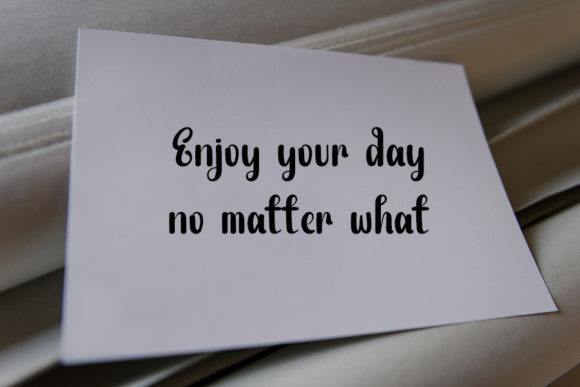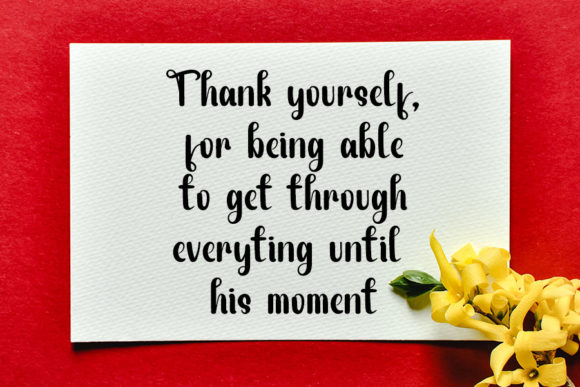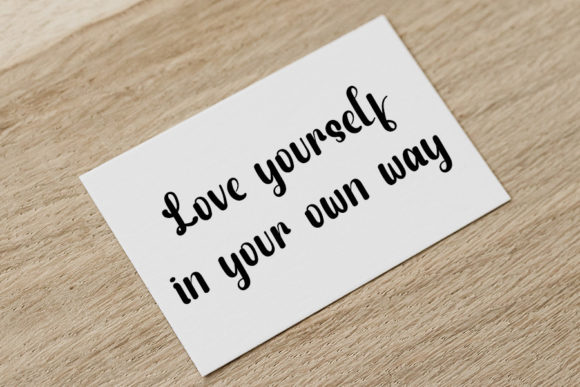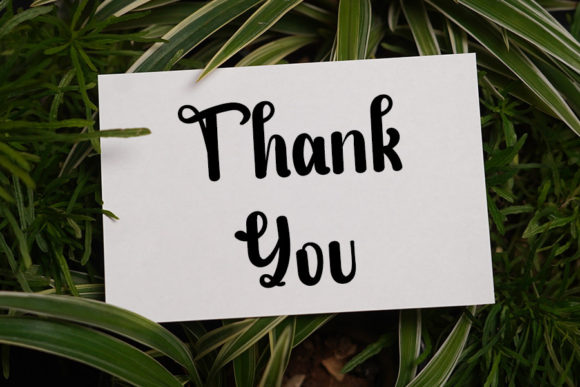
The Quest for the Perfect Font: Discovering Camping Soon
Ah, the eternal struggle of finding the perfect font for your design project. I recall a particularly frustrating moment when I was working on a client’s branding campaign, and I just couldn’t seem to find a font that captured the essence of their outdoor adventure brand. That was until I stumbled upon Camping Soon, a stylish handwritten font that has since become a staple in my design toolkit.
An Honest Review of Camping Soon
So, what makes Camping Soon so special? Let’s dive into the good stuff! 😊
- ✨ Timeless classic calligraphy feel: Camping Soon is inspired by traditional calligraphy, but with a modern twist that makes it perfect for contemporary designs.
- ✅ Balanced and varied: The font features a range of glyphs and stylistic alternates that ensure your text always looks fresh and engaging.
- 💫 Impeccable form: The font’s attention to detail is impressive, with beautifully crafted letterforms that exude elegance and sophistication.
Of course, no font is perfect, and Camping Soon is no exception. Here are a few quirks to keep in mind:
- 🤔 Limited multilingual support: While Camping Soon covers the basics, it’s not designed for extensive multilingual use.
- ⚠️ Some glyphs may require manual adjustment: Depending on your design, you might need to tweak certain glyphs to get the perfect fit.
The Story Behind Camping Soon
Camping Soon was designed with the aim of capturing the essence of timeless classic calligraphy, while infusing it with a modern twist. The font’s creator drew inspiration from the great outdoors, seeking to evoke the sense of adventure and freedom that comes with exploring nature. The result is a font that’s both elegant and approachable, perfect for designers looking to add a touch of sophistication to their projects.
| What is Camping Soon inspired by? | Timeless classic calligraphy, with a modern twist. |
| Is Camping Soon suitable for body text? | While it’s primarily designed for headlines and titles, Camping Soon can be used for body text in certain contexts. However, it’s recommended to use it sparingly to maintain readability. |
| Does Camping Soon support OpenType features? | Yes, Camping Soon features a range of OpenType features, including stylistic alternates and glyphs. |